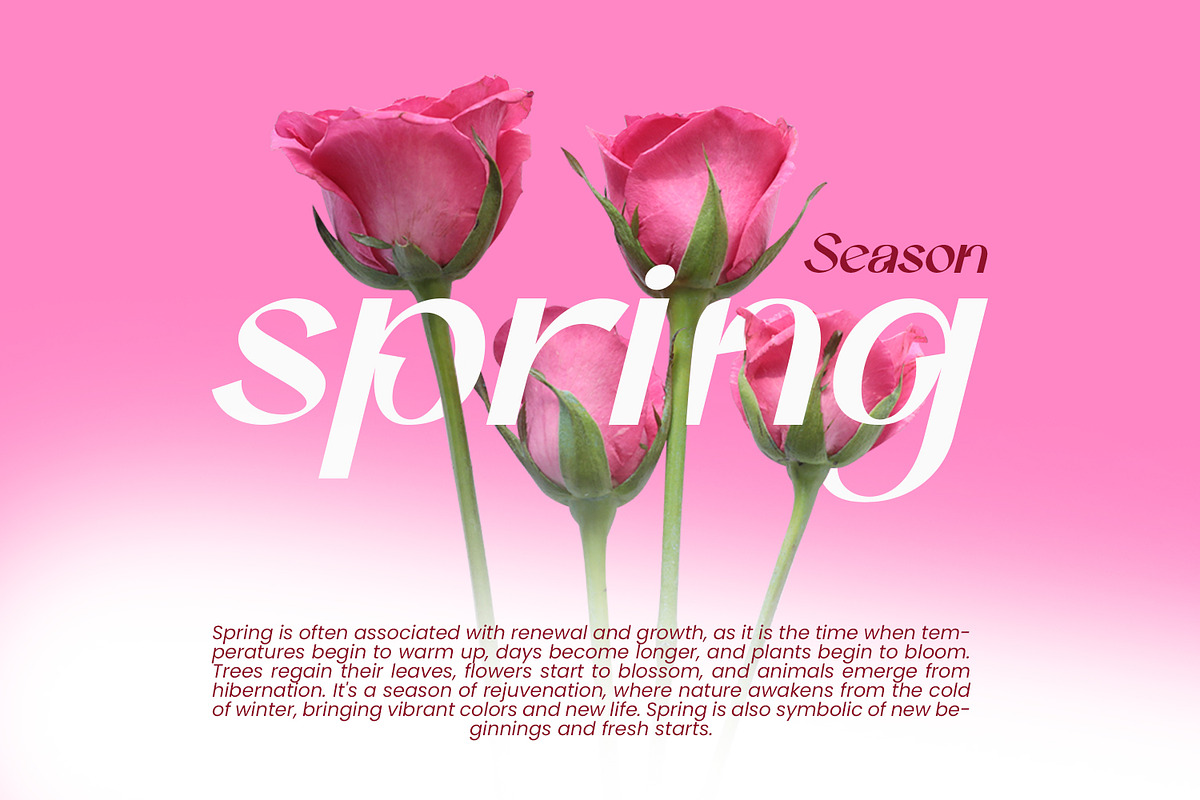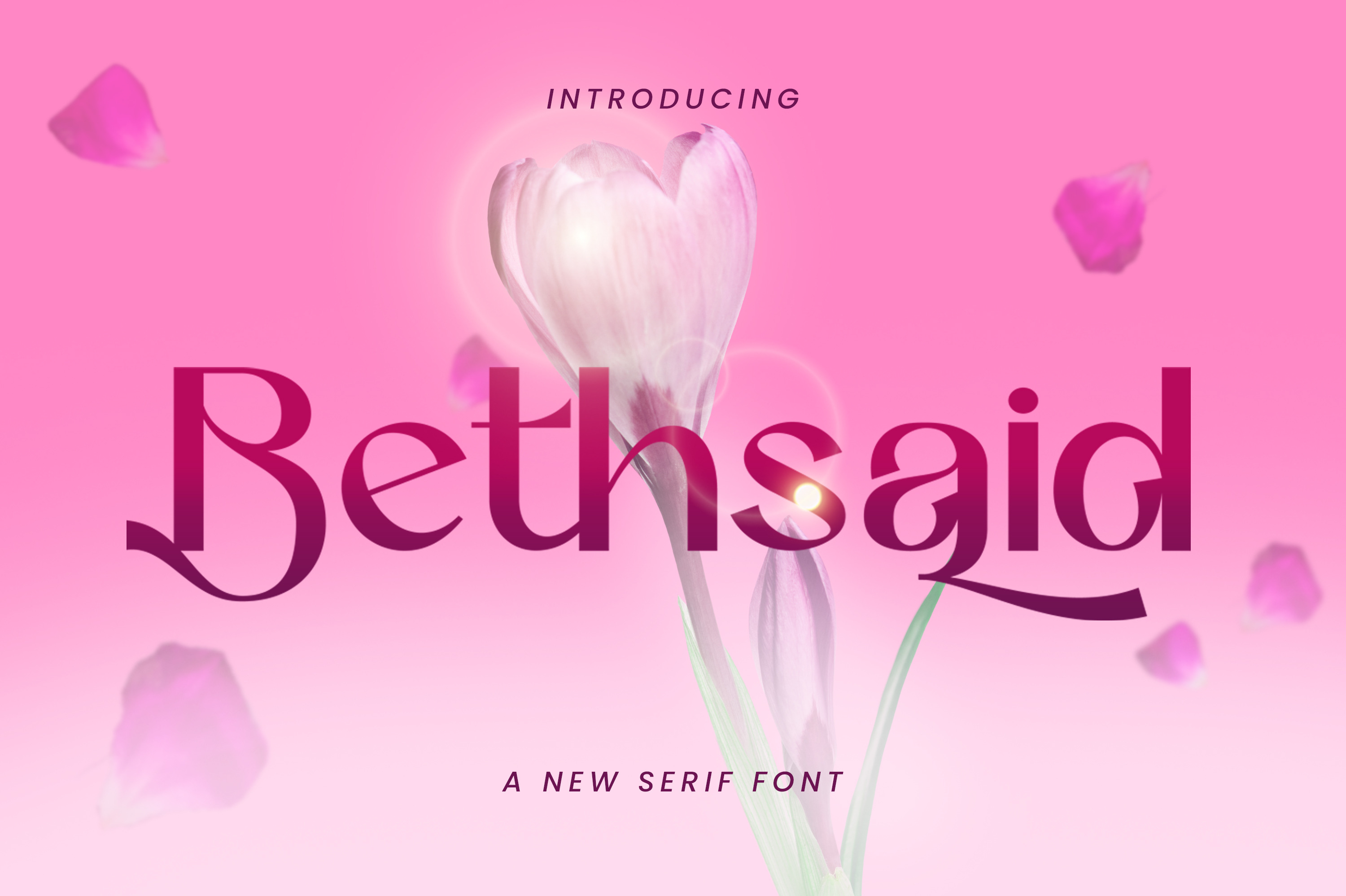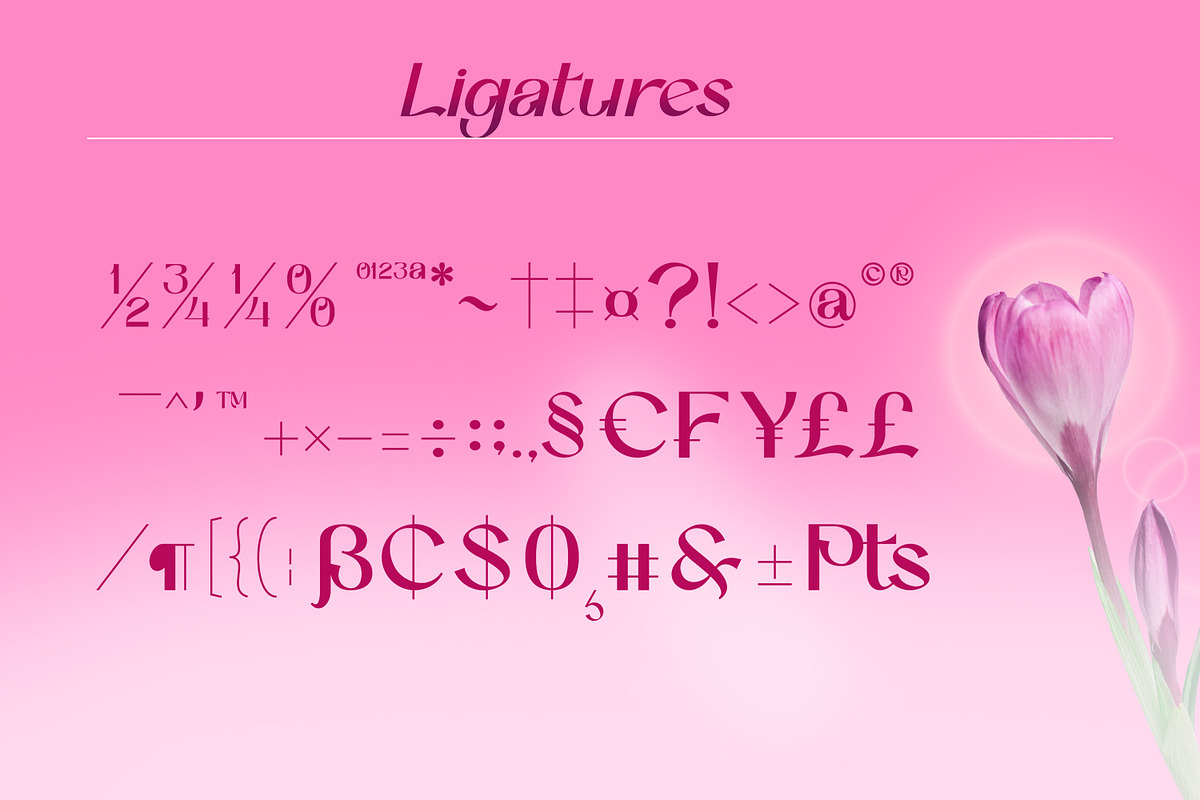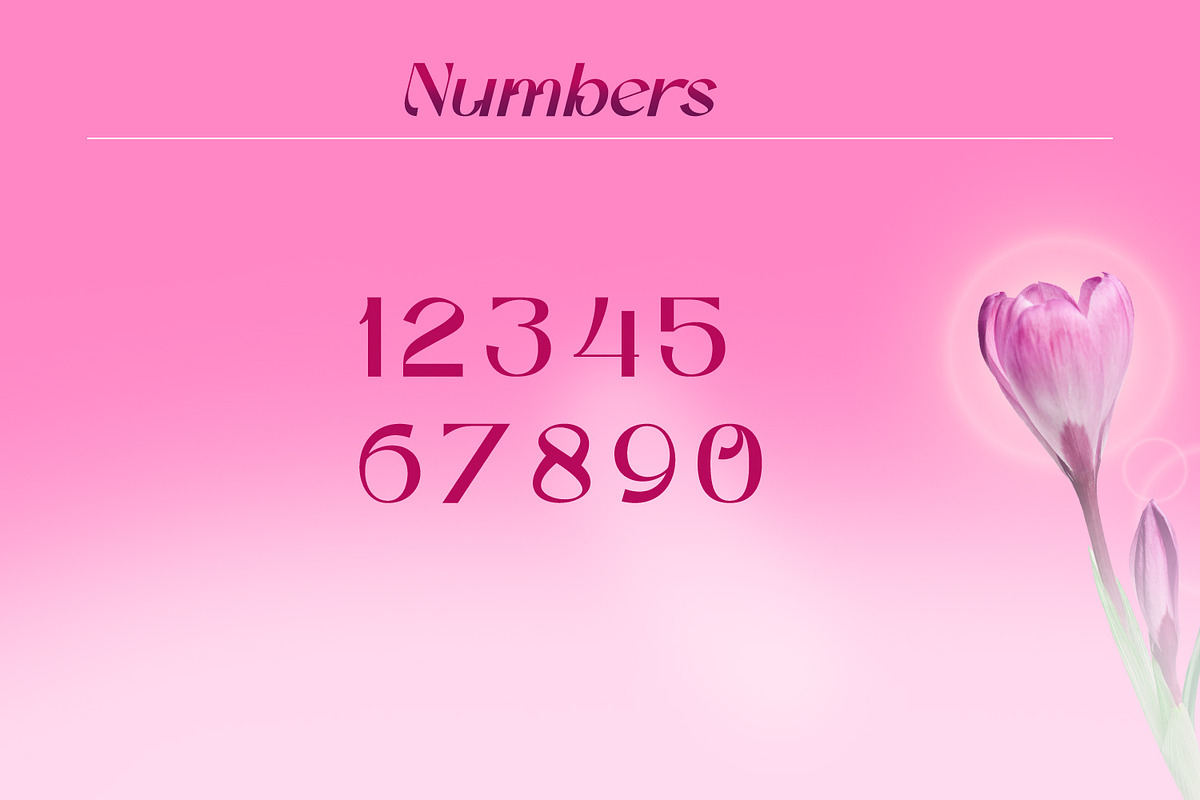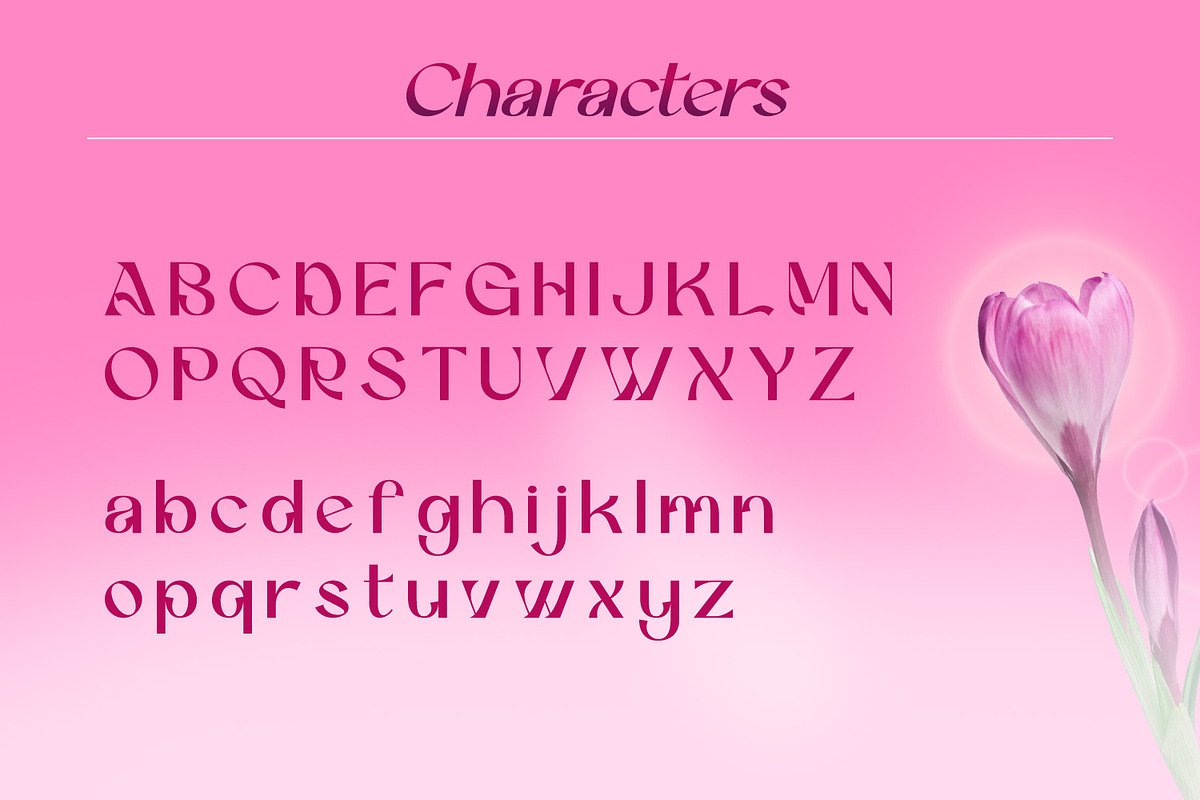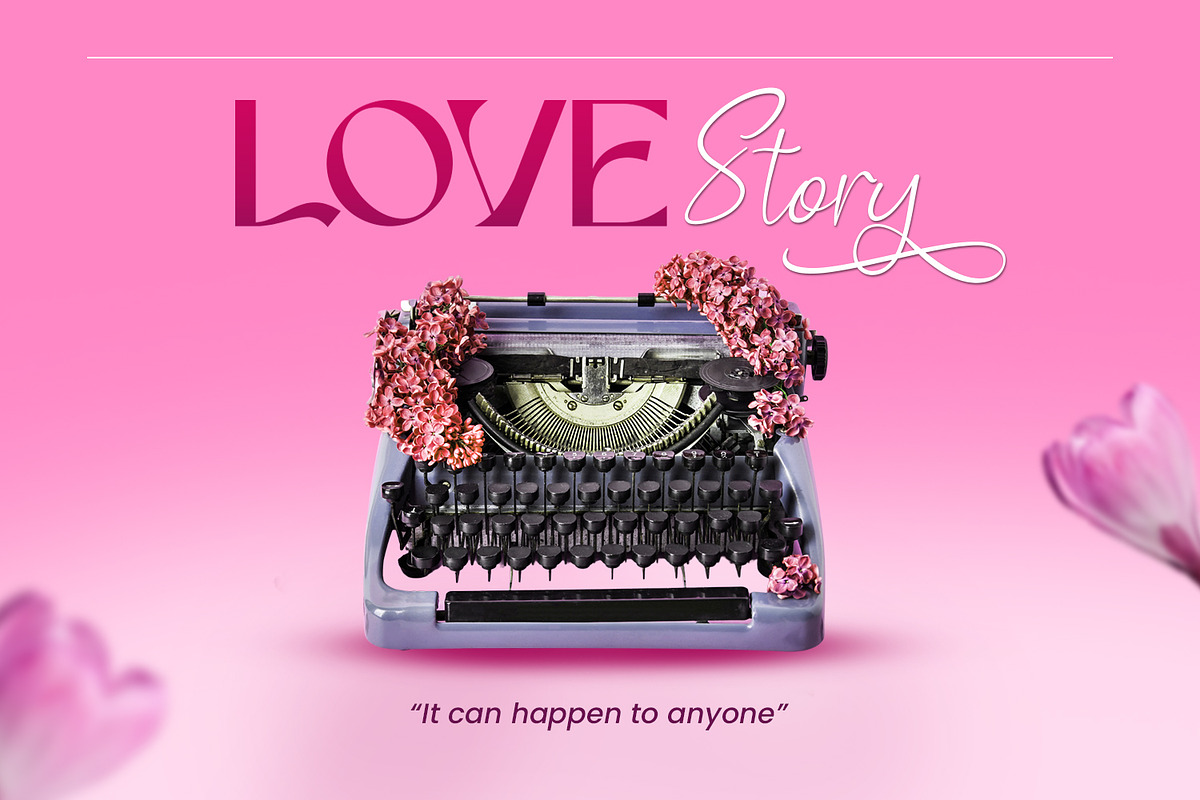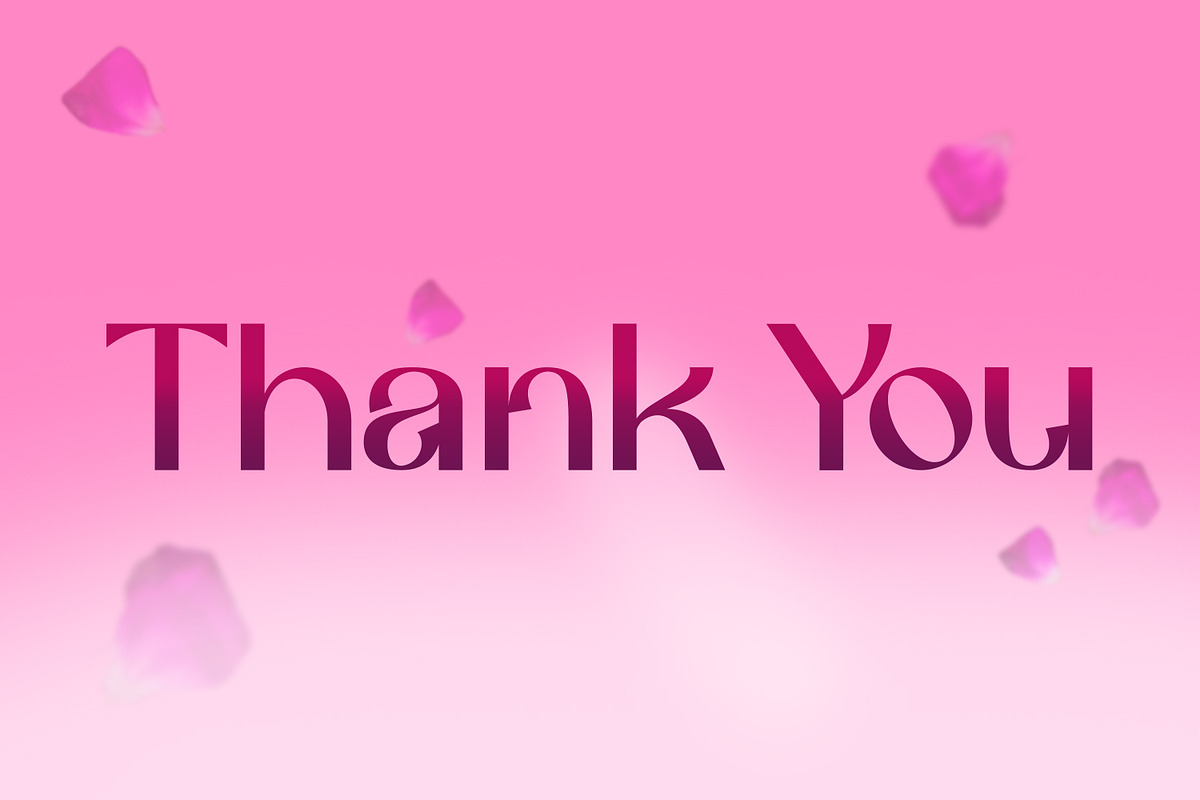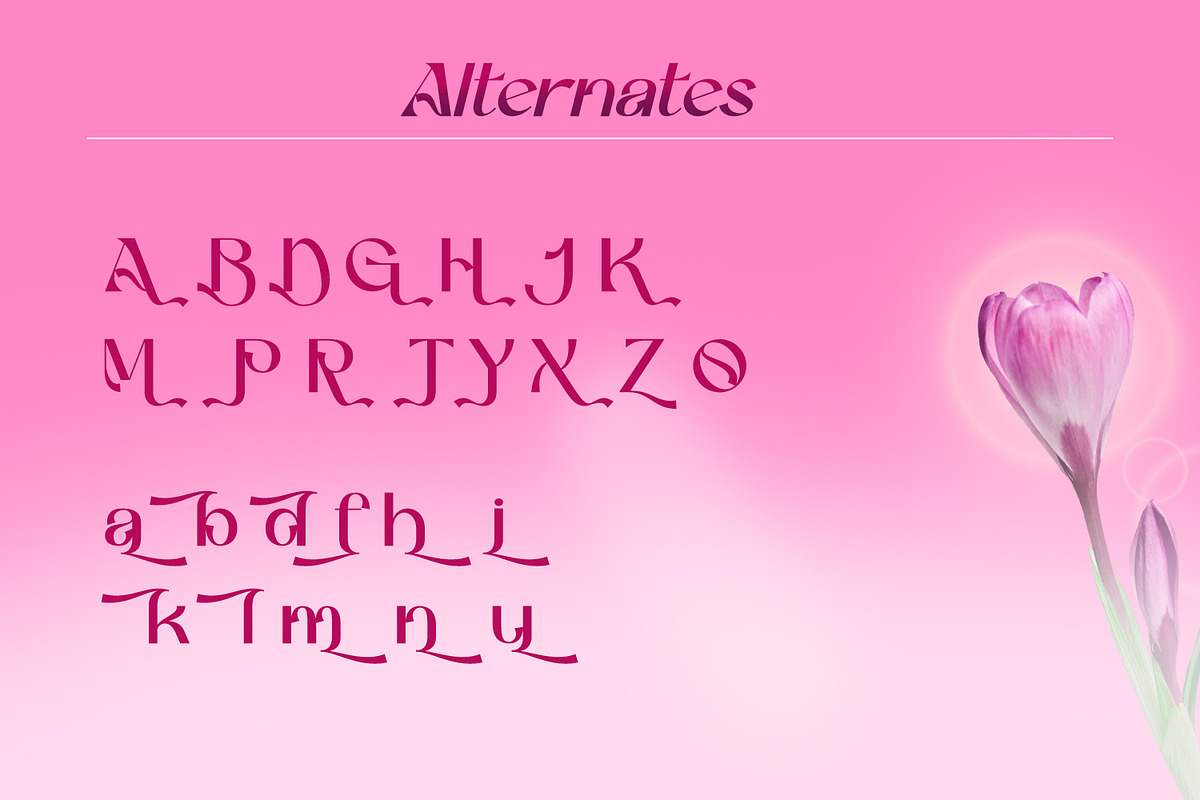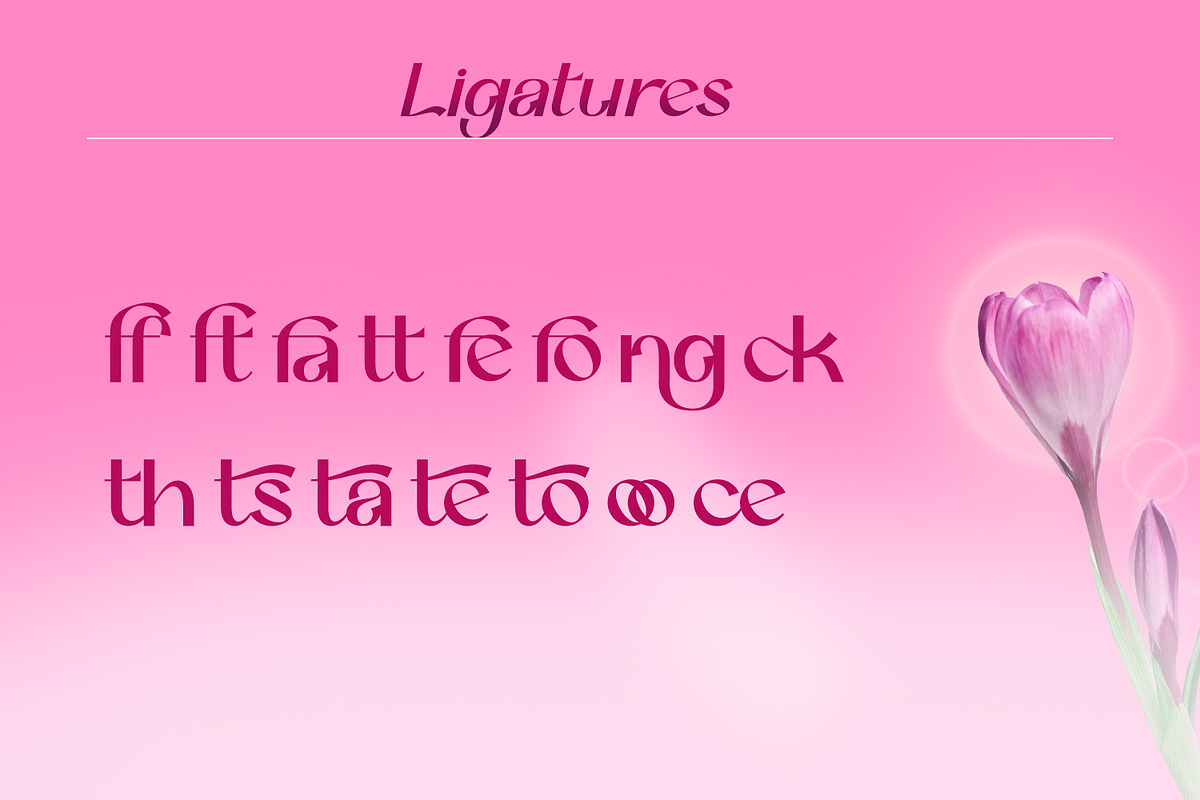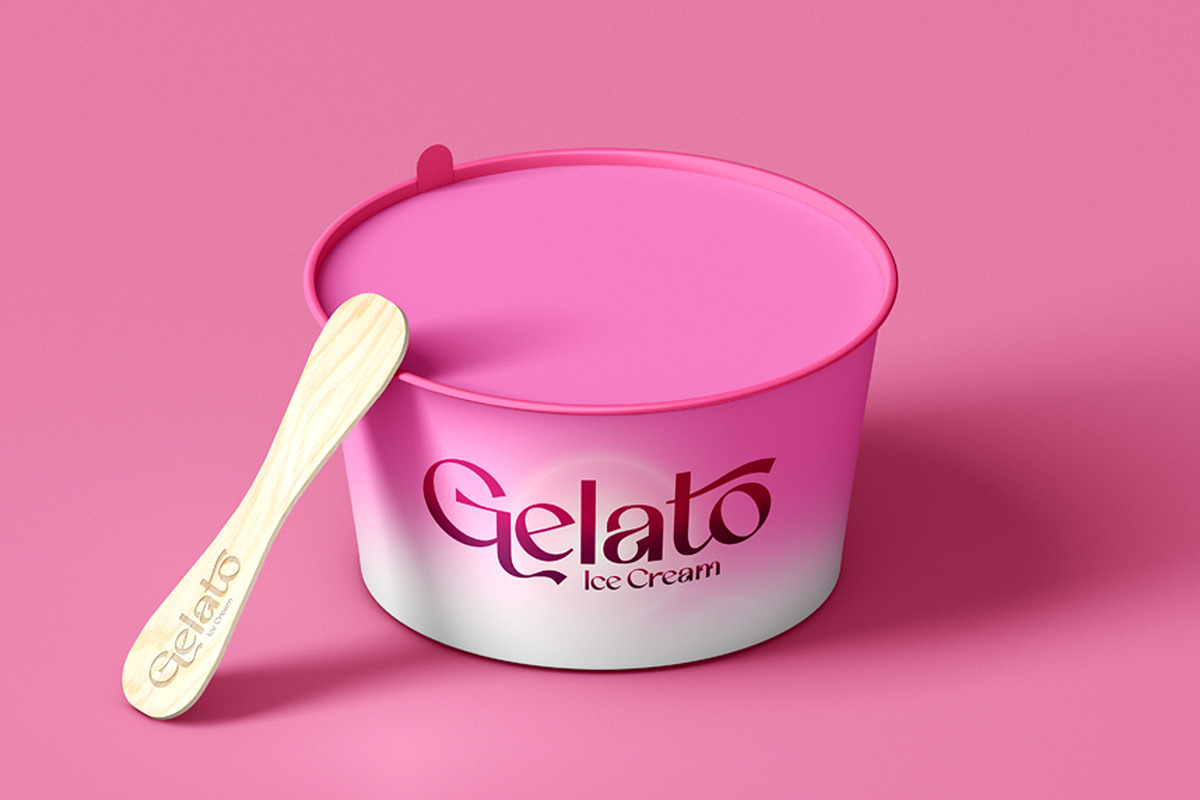
Betshaid - Stylish Display Font
Betshaid - Stylish Display Font, from Favowrite Studios, is a premium Font, perfect for any project that requires a distinctive, and premium feel.
- Ligature, Alternate & amp; Multilingu